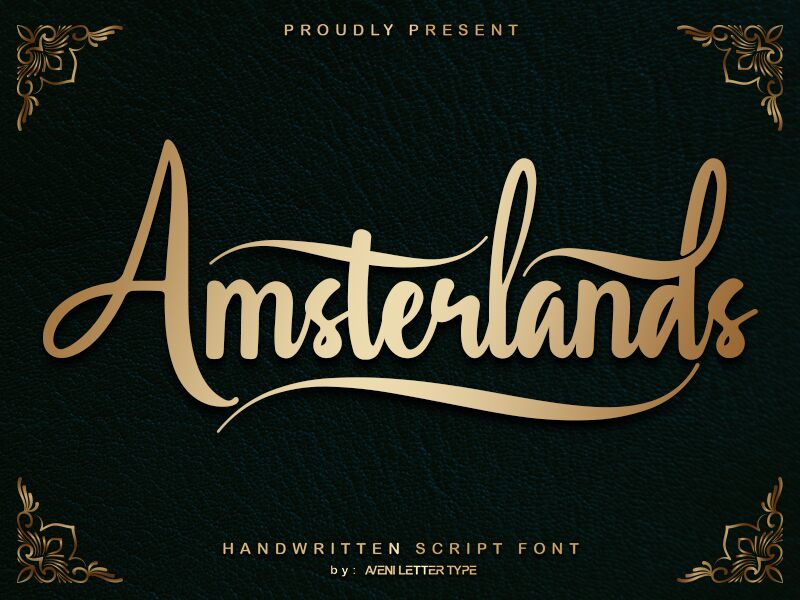
Amsterlands by Aveni Letter Type is a captivating handwritten font that exudes a sense of effortless elegance and warmth. The flowing, organic lines and gentle variations in stroke weight create a charming, hand-crafted aesthetic, evoking a feeling of authenticity and personalization. This font's distinctive personality makes it a compelling choice for a wide range of design projects, from branding and packaging to editorial layouts and invitation suites.
Amsterlands' versatility allows it to seamlessly adapt to diverse design contexts, lending a touch of sophisticated whimsy to projects that call for a sophisticated yet approachable visual style. Its unique character and legibility make it a versatile option for headlines, subheadings, and even body text, adding a touch of personal flair to any design.